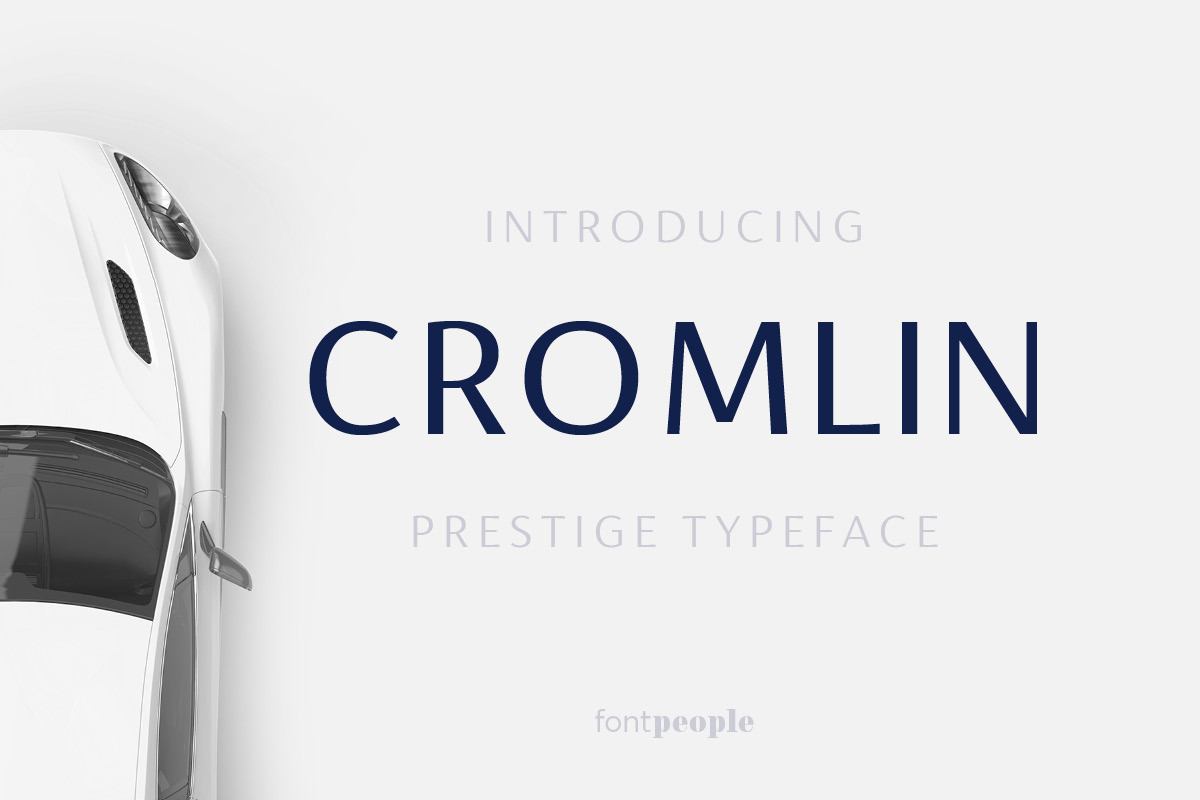
Cromlin Font Family by FontPeople Free Download is a versatile, contemporary typeface collection designed for clean communication and modern branding. With a range of weights and styles, Cromlin adapts effortlessly to both corporate and creative projects—ideal for logos, websites, editorial layouts, and packaging.
This font family offers strong geometric construction paired with subtle humanist touches, resulting in a typeface that feels both professional and approachable. From bold headlines to readable body text, Cromlin ensures clarity and style across all media.
Designers love Cromlin for its flexibility, balance, and high-quality design from the trusted team at FontPeople. Want to elevate your typography with a refined font family? Download Cromlin Font Family by FontPeople Free Download and bring modern elegance and function to your next design.